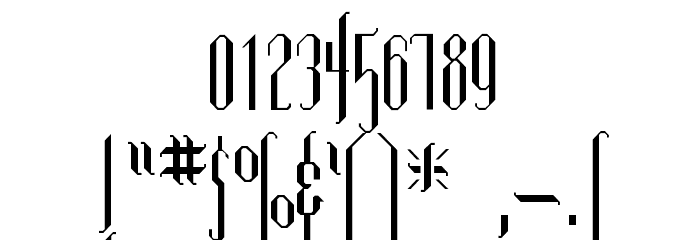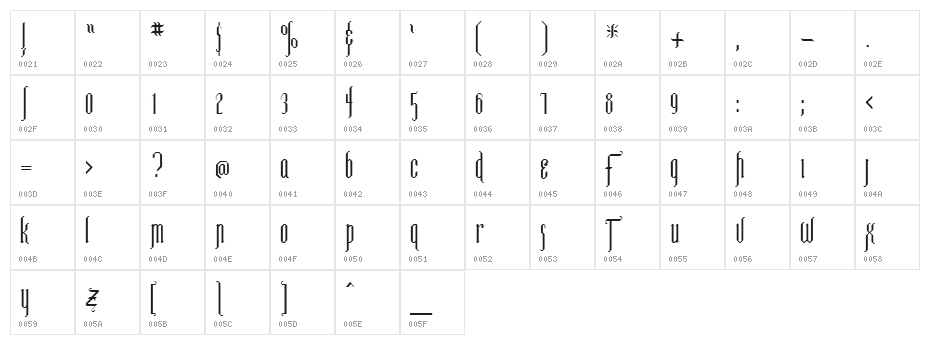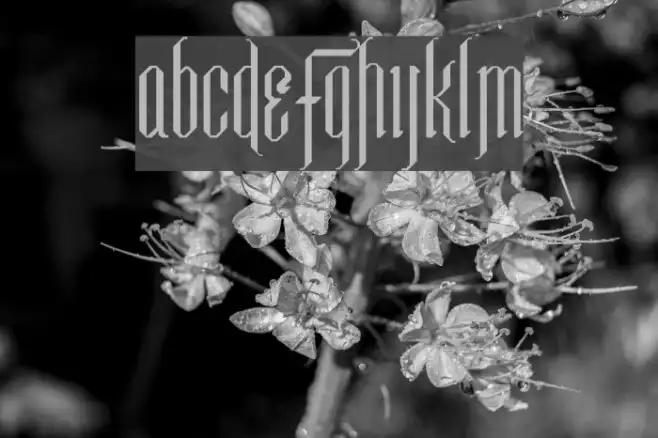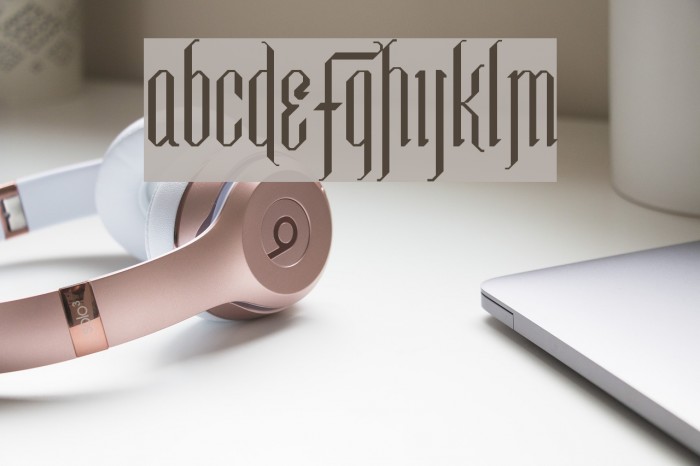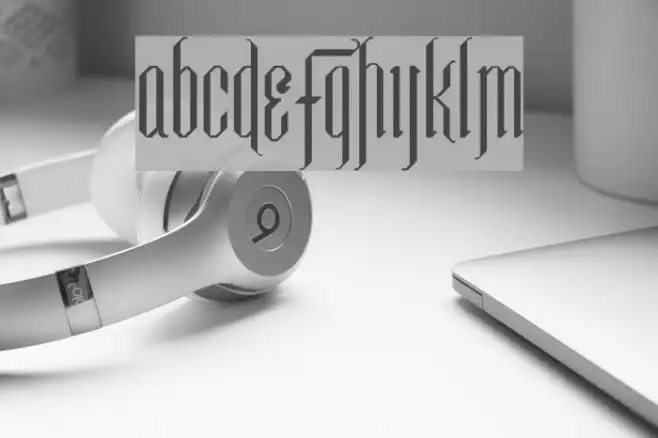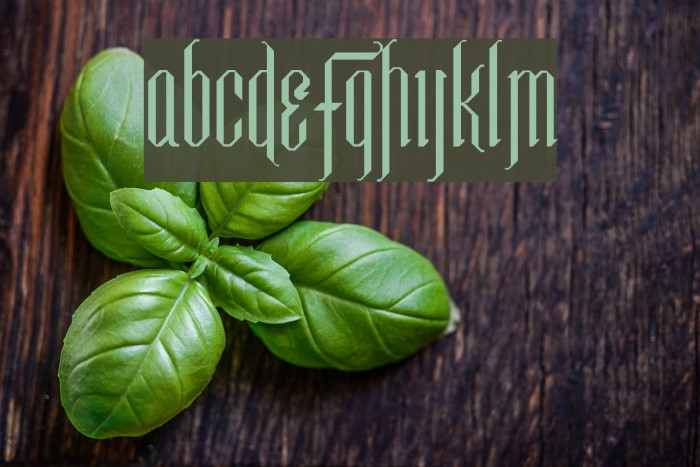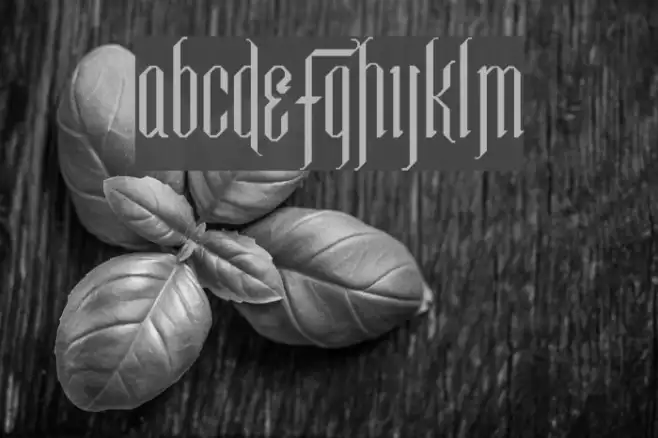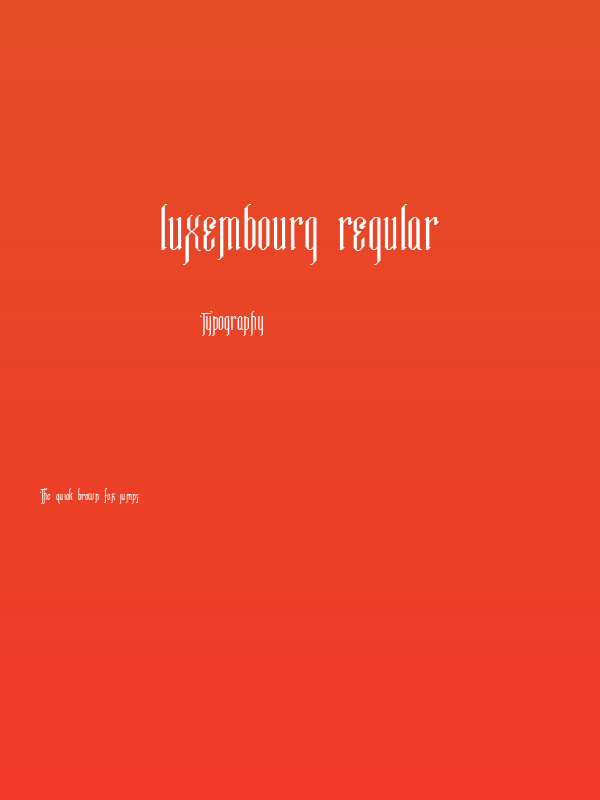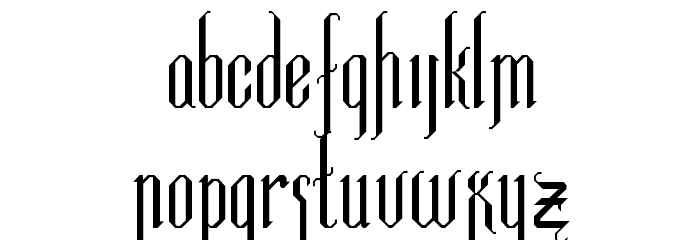
Luxembourg Regular Font
Luxembourg Regular Description
This font exhibits a striking and intricate design, reminiscent of traditional blackletter styles. The characters are tall and narrow, with sharp, angular edges and elaborate flourishes that give it a distinctly Gothic appearance. The uppercase and lowercase letters maintain a consistent height, creating a uniform look across the text. The numbers and special characters are equally ornate, with unique embellishments that enhance the overall aesthetic. This font's dramatic presence makes it ideal for projects that require a historical or medieval touch.